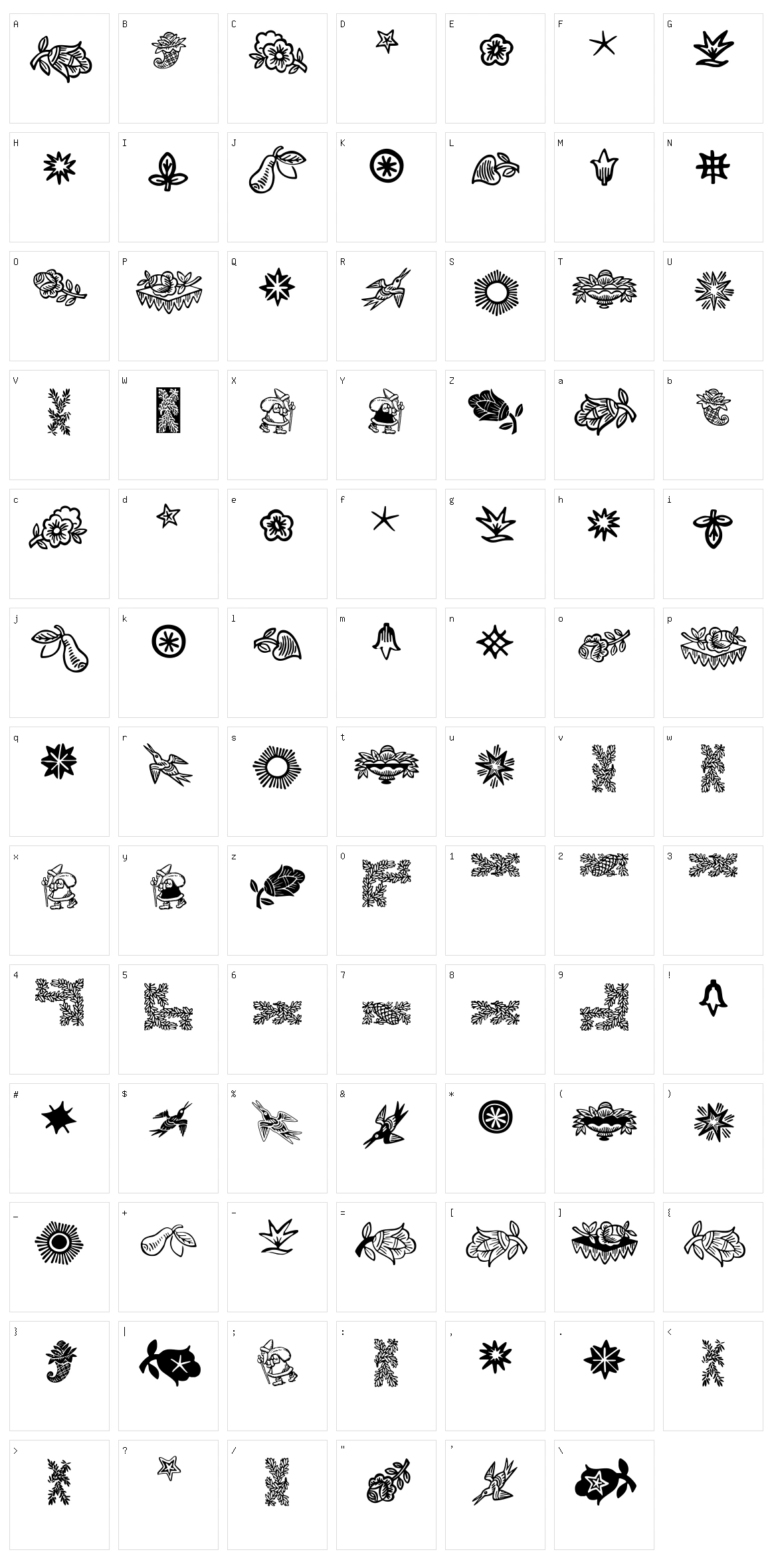
The free font Deutscher Schmuck is carefully designed by Manfred Klein, showcasing a thoughtful balance of creativity and usability and falls under the Christmas font style. When you download the ZIP file, it contains only 143.57 KB of font files, making it lightweight and quick to download. Please review the license details below to understand permitted usage and distribution rights. If license information is not available, we recommend using this font for personal projects only or contacting the author directly for commercial usage permissions.